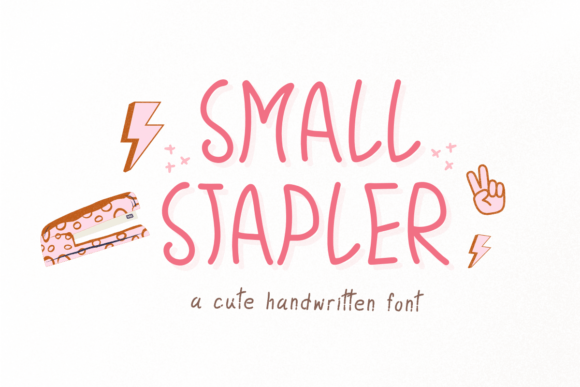
Unleash the charm of simplicity and cuteness with Small Stapler, a handwritten font that captures the essence of a child's playful spirit. Its simple yet charming strokes evoke a sense of innocence and wonder, making it the perfect choice for creating designs that spark joy and creativity.
Small Stapler's versatility extends beyond its adorable appearance. Its wide range of applications makes it a valuable asset for designers of all levels, from those crafting handmade cards to educators creating engaging lesson materials. Its legible and friendly nature ensures that your text will shine as the centerpiece of your design, captivating your audience with its undeniable charm.
Step into a world of endless possibilities with Small Stapler, where your imagination and creativity can run wild. Let the font's playful personality add a touch of whimsy to your designs, bringing smiles to the faces of all who encounter them.
- Exquisite Handwritten Charm: Small Stapler's graceful strokes and charming curves embody the essence of a child's playful spirit, adding a touch of magic to your designs.
- Versatile Applications: From crafting handmade cards and invitations to designing educational materials and marketing campaigns, Small Stapler's versatility knows no bounds.
- Simple and Legible: Despite its playful appearance, Small Stapler maintains excellent legibility, ensuring that your text remains clear and readable, making it perfect for a wide range of design projects.